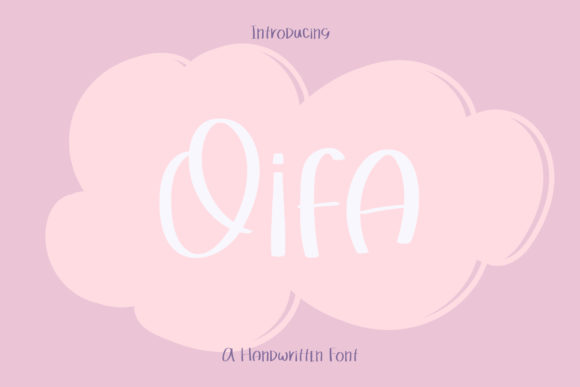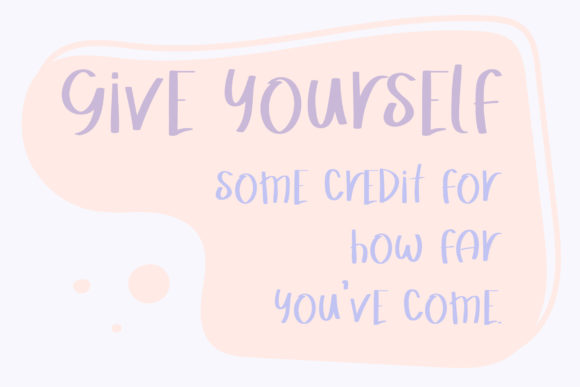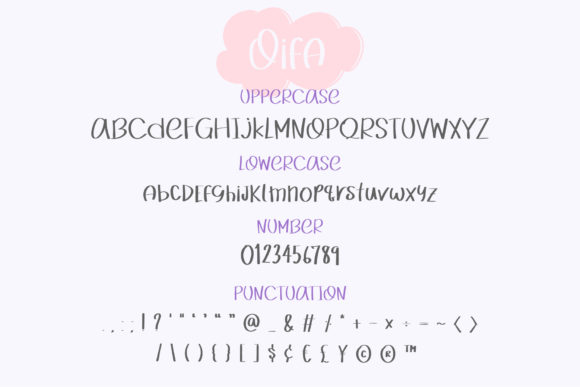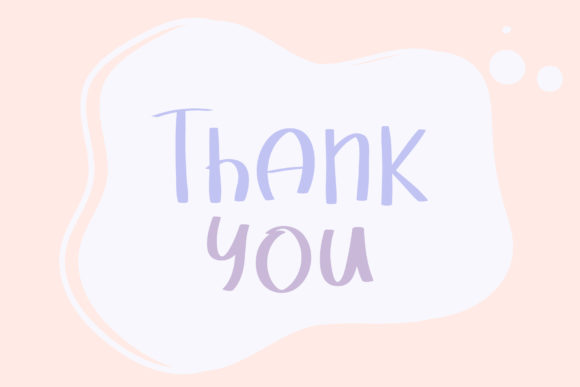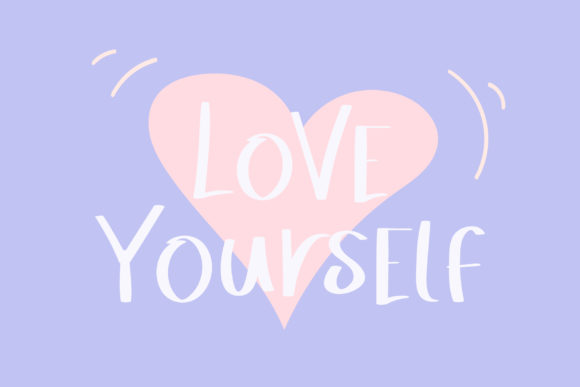
Oifa Font
About Oifa Font
Oifa is a cute and quirky handwritten font. Relaxed and friendly, this font will look outstanding on a wide range of designs!